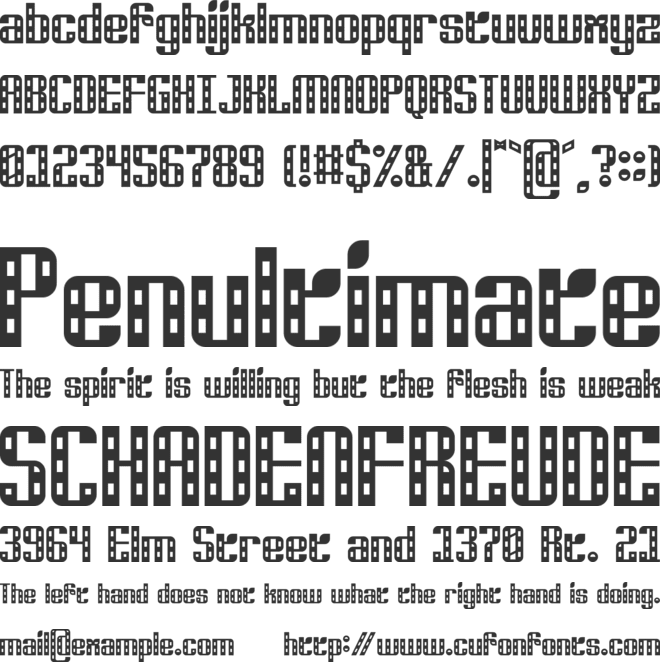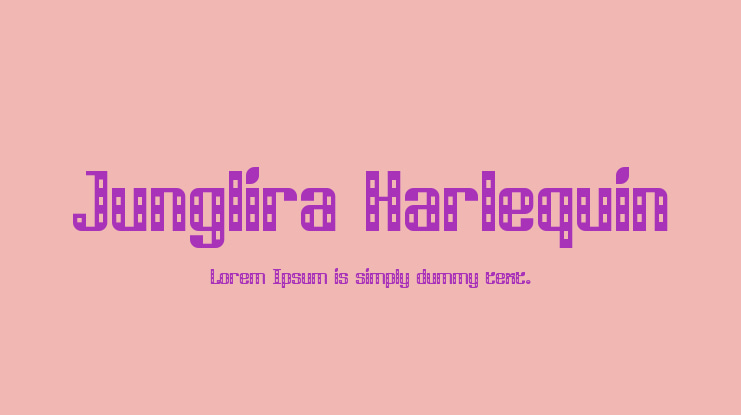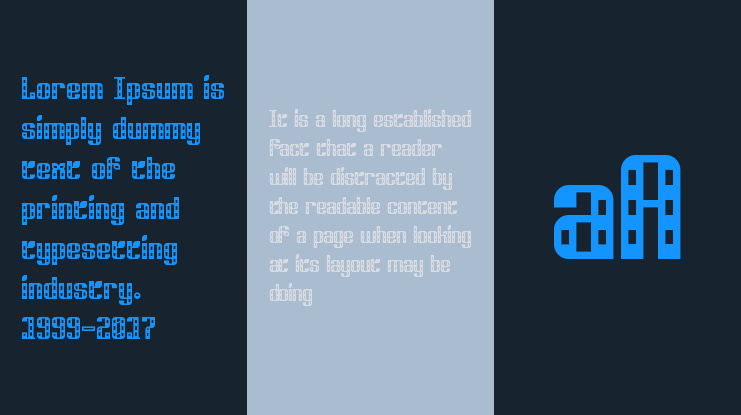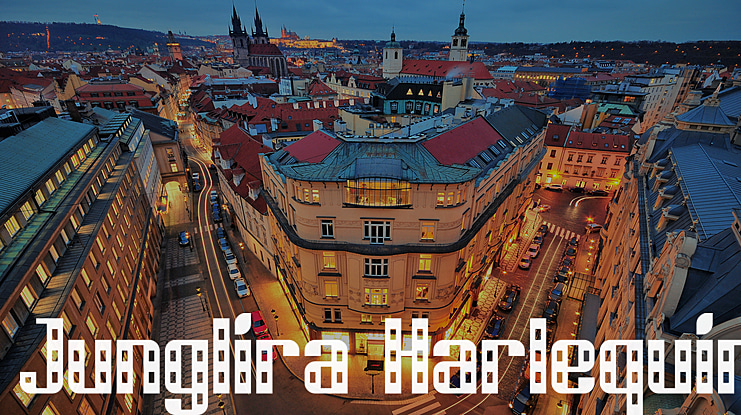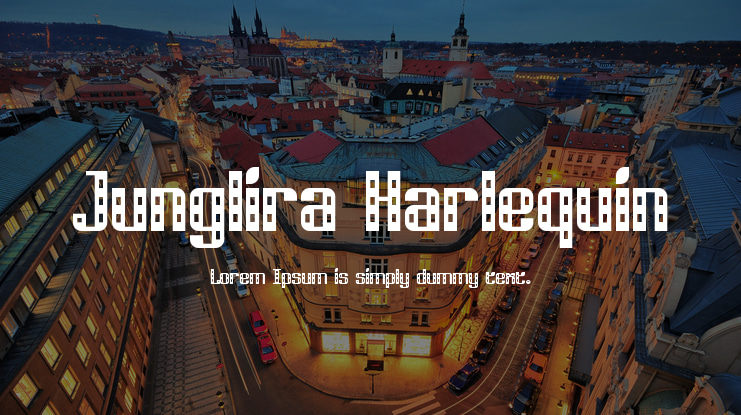
Junglira Harlequin Font Family
A slightly leafy engraving-style Decolike. Supports Danish, Dutch, English, Finnish, French, German, Hungarian, Icelandic, Italian, Norwegian, Polish, Portuguese, Spanish, and Swedish!